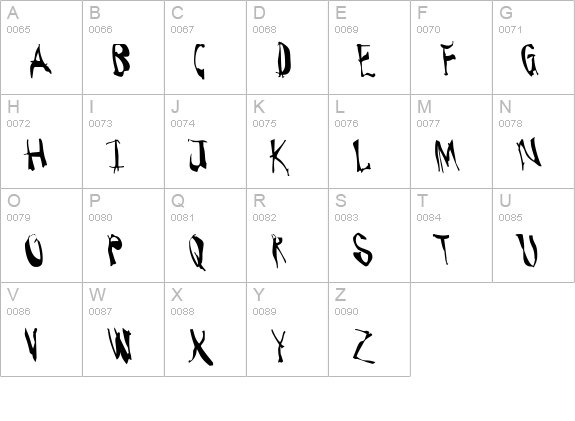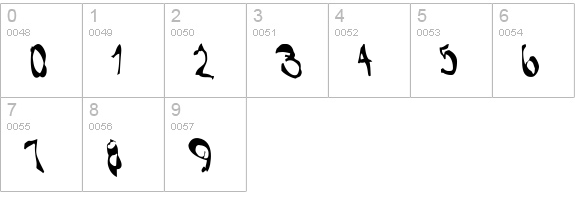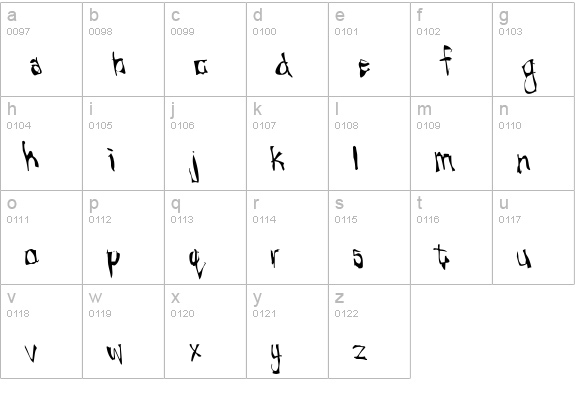
Lefty Font Details
Introducing Lefty font, a visually stunning typeface that effortlessly blends elegance and modernity. With its unique and distinctive design, Lefty font is perfect for adding a touch of sophistication to any project. What sets Lefty font apart is not just its exquisite aesthetics, but also its accessibility. This incredible font is freely available to download at FontsMarket.com, making it accessible to designers, artists, and individuals alike who are looking to enhance their creative endeavors without breaking the bank. Lefty font presents a harmonious balance of smooth curves and sharp edges, creating a captivating visual experience that is both pleasing to the eye and effortlessly legible. Its versatility allows for seamless integration across various contexts, whether it be graphic design, branding, advertising, or any other medium where typography plays a vital role. As you delve into the vast possibilities of Lefty font, you will discover its extensive character set, encompassing a wide range of uppercase and lowercase letters, numerals, symbols, and punctuation marks. This comprehensive library ensures that you have all the tools necessary to bring your ideas to life and convey your message with utmost clarity and style. Whether you are designing a logo, crafting an invitation, or simply adding a personal touch to your everyday correspondence, Lefty font provides endless opportunities for creative expression. Its versatility, combined with its freely available nature at FontsMarket.com, makes it the perfect choice for both professional designers and hobbyists alike. Download Lefty font today and unlock a world of creativity at your fingertips. With its stunning aesthetics, extensive character set, and accessibility, Lefty font is guaranteed to elevate your designs and leave a lasting impression. Don't miss out on this incredible opportunity to enhance your typographic repertoire – get your hands on Lefty font today and let your imagination soar.